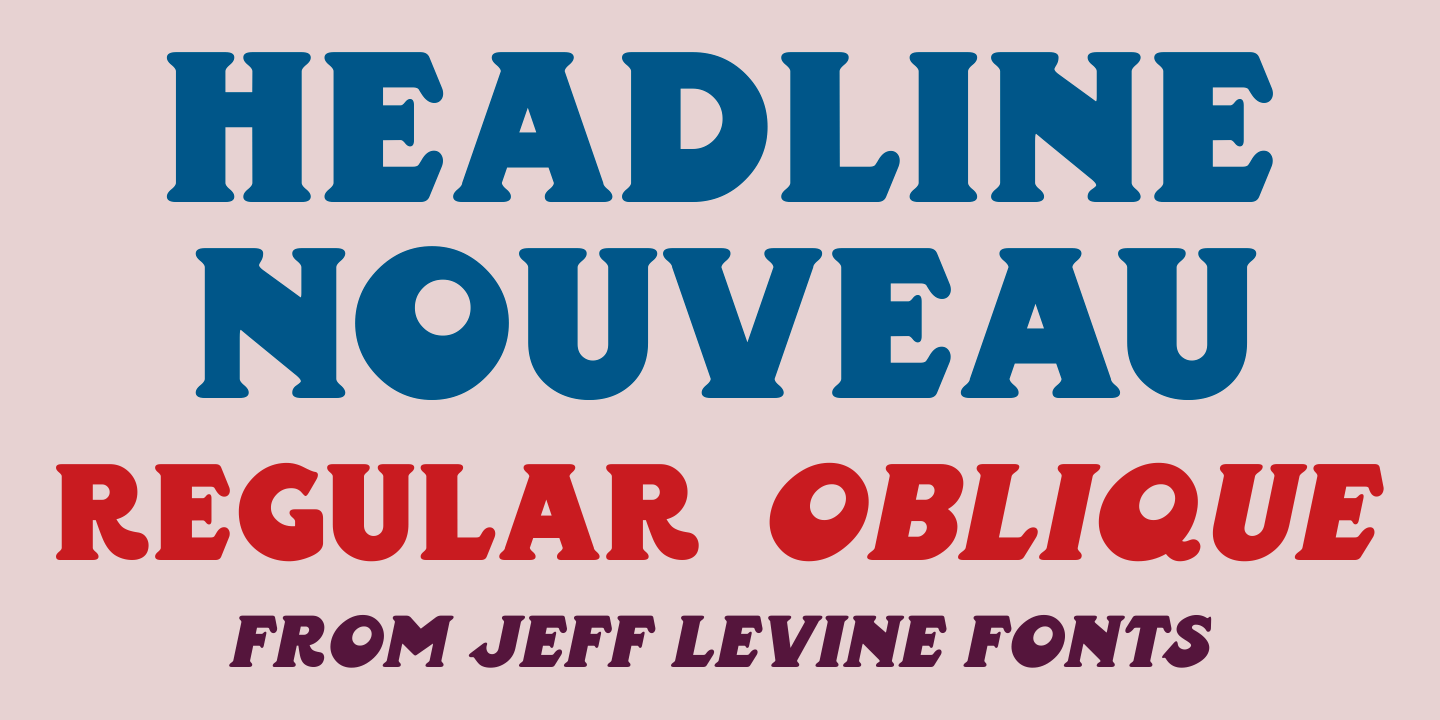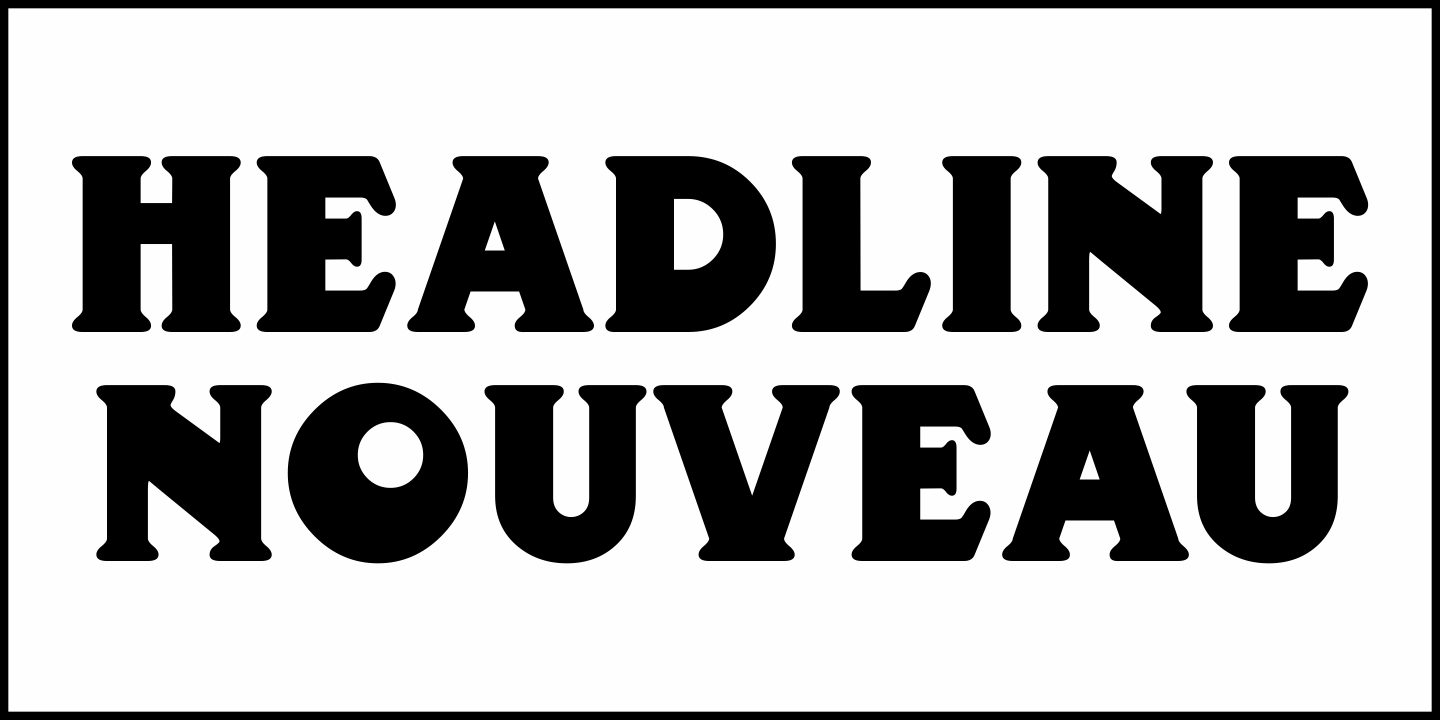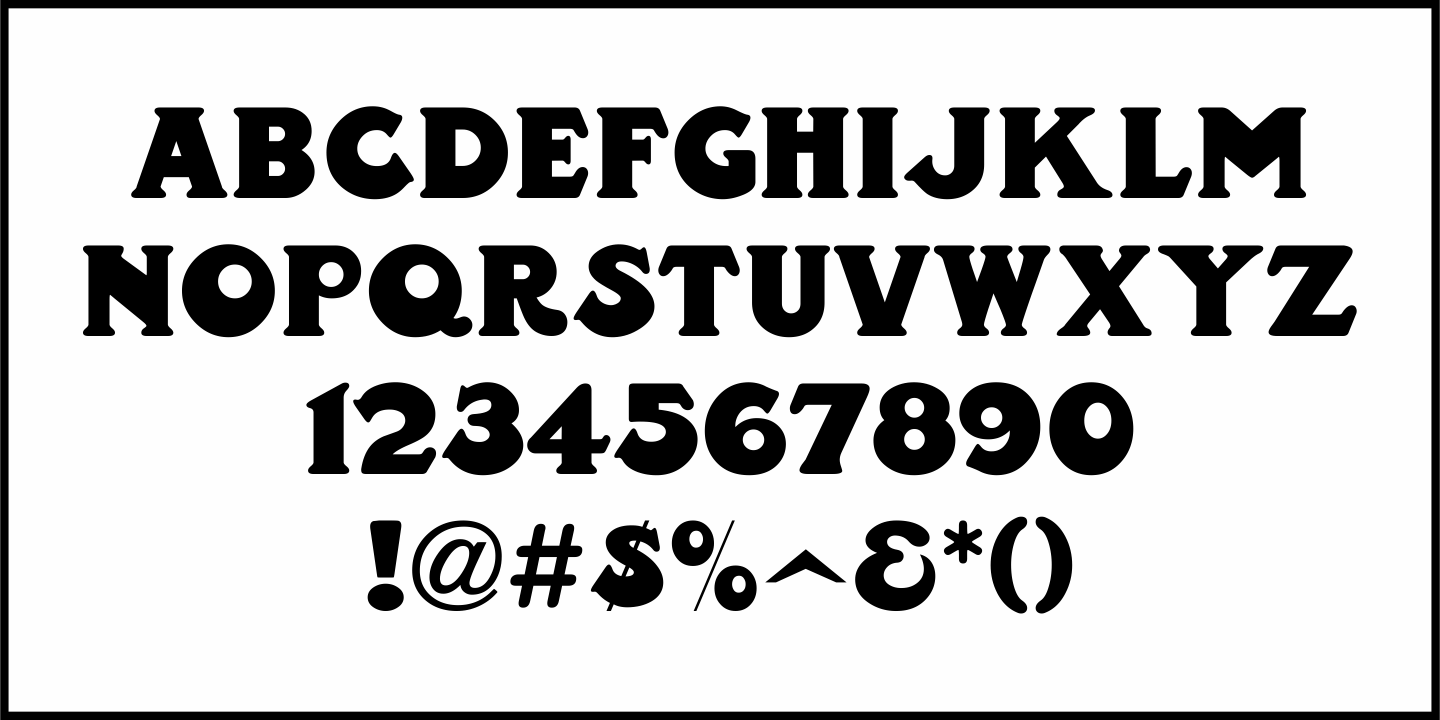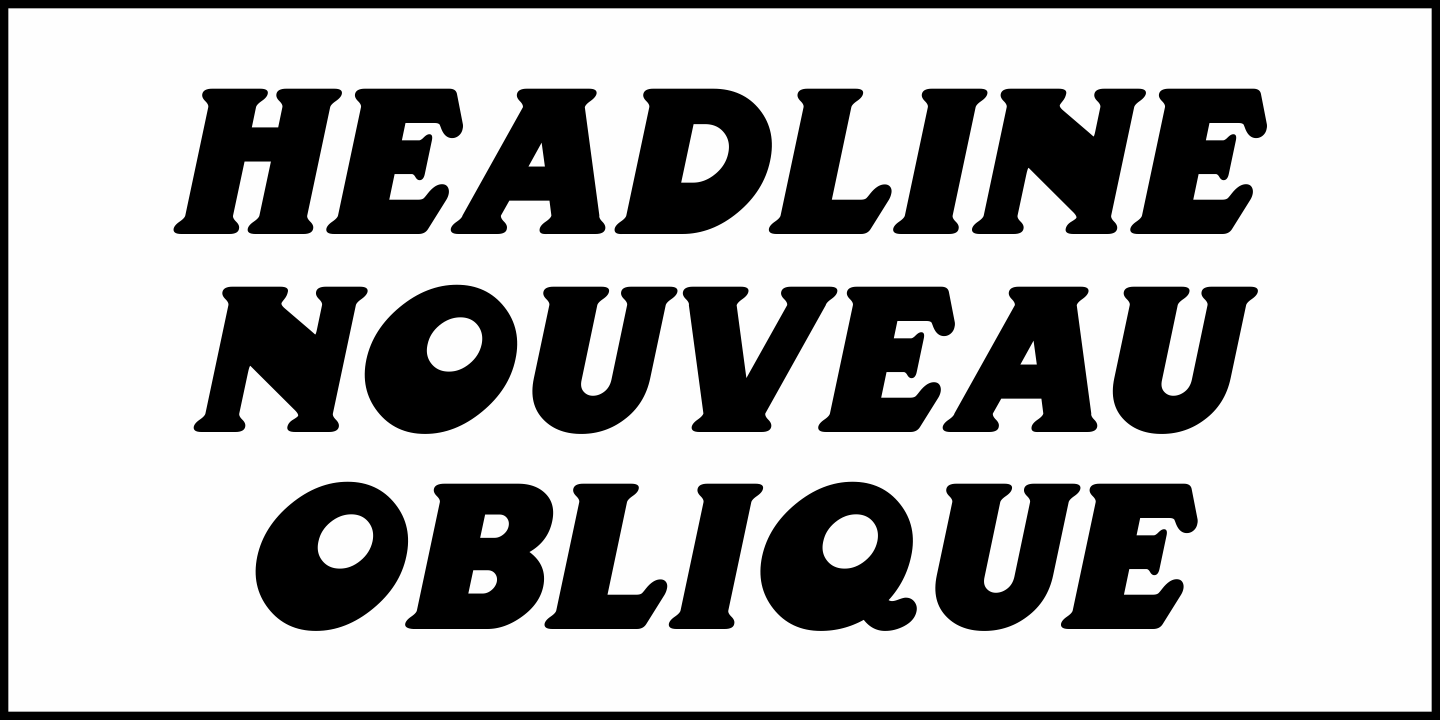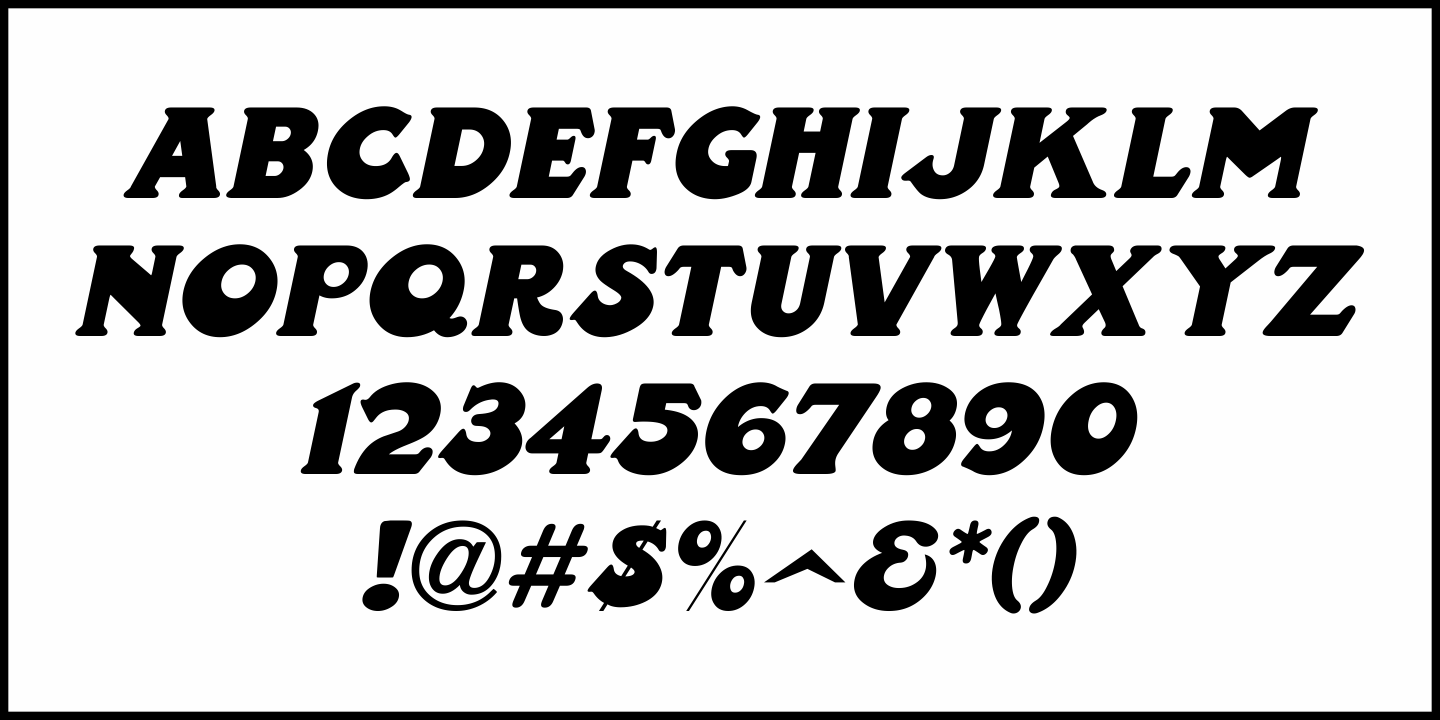
Headline Nouveau
Buy NowThe hand lettered title for the 1890s book called 'The Octopus” featured extra bold Art Nouveau lettering with rounded serifs.
This is now available as Headline Nouveau JNL in both regular and oblique versions.